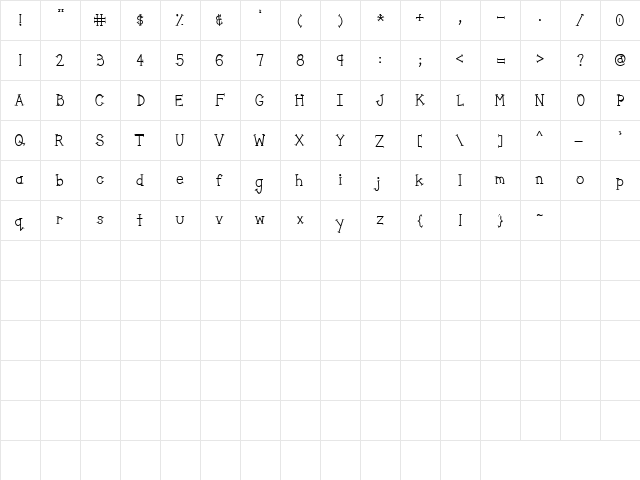
Doodle Dash Regular
Design Context for Doodle Dash Typeface
Doodle Dash is a composed and adaptable typeface that performs quietly and consistently across a wide range of design contexts.